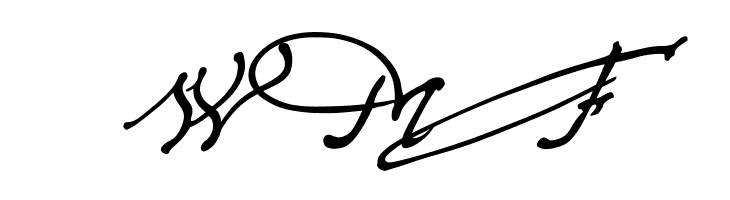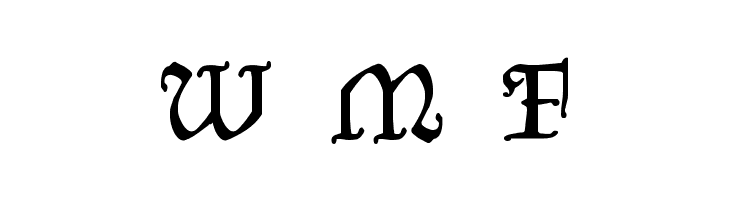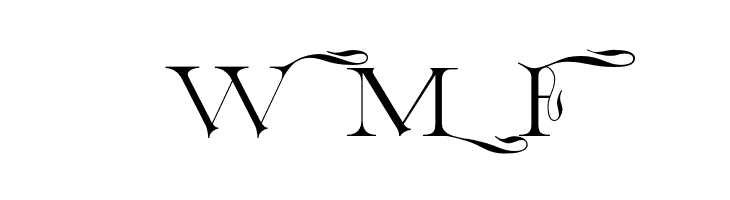
An ornate script font with elegant swirls and decorative flourishes.
An ornate and decorative font with intricate loops and flourishes.
An ornate and decorative script font with intricate swirls and flourishes.
An ornate blackletter font with intricate flourishes and bold strokes.
An elegant, decorative font with artistic flourishes and a sophisticated style.
An elegant, flowing cursive font with intricate flourishes and decorative appeal.
An elegant and ornate script font with intricate swashes and flourishes.
A playful and bold font with unique curves and flourishes.
A decorative font with ornate flourishes and embellishments.
Ornamental motif font with decorative flourishes and dividers.
Ornamental dingbat font with flourishes and decorative motifs.
An elegant and flowing script font with ornate loops and flourishes.
An ornate and decorative font with intricate flourishes and embellishments.
An ornate and decorative typeface with intricate flourishes and bold strokes.
An ornate and decorative font with intricate flourishes, ideal for elegant and formal designs.
A highly decorative, gothic-style font with intricate flourishes and sharp angles.
An ornate Gothic font with intricate curls and flourishes.
A playful, handwritten font with whimsical flourishes and a personal touch.
An ornate and decorative font with intricate flourishes and embellishments.
A decorative blackletter-style font with intricate flourishes and sharp, angular strokes.
An artistic and decorative font with intricate flourishes and elegant strokes.
A playful, casual handwritten font with dynamic strokes and charming flourishes.
An ornate, calligraphy-inspired font with decorative flourishes.
An ornate and decorative font with intricate swirls and flourishes.
A bold, expressive script font with dramatic flourishes and interconnected characters.